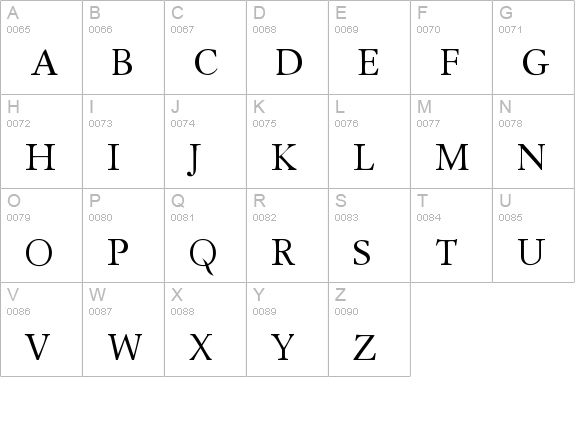
Parlante Tryout Font Details
Parlante Tryout font is a stunning display typeface that will captivate your audience with its bold and modern design. Its sleek lines and sharp edges give it a contemporary feel, making it perfect for eye-catching headlines, logos, and branding materials. This versatile font features uppercase and lowercase letters, numerals, punctuation marks, and special characters, allowing you to unleash your creativity in various design projects. Whether you're designing a poster for a concert, creating a magazine layout, or designing a website, Parlante Tryout font will add a touch of sophistication and professionalism to your work. One of the best things about Parlante Tryout font is that it is free to download. That's right, you can easily access this amazing font without breaking the bank. Simply head over to FontsMarket.com, where you'll find this font available for free download. This means that you can enhance your designs without having to worry about any additional costs. With Parlante Tryout font, you can take your designs to the next level. Its modern and stylish look will make your creations stand out from the crowd and leave a lasting impression on your audience. So why wait? Download Parlante Tryout font today and let your creativity flow freely.